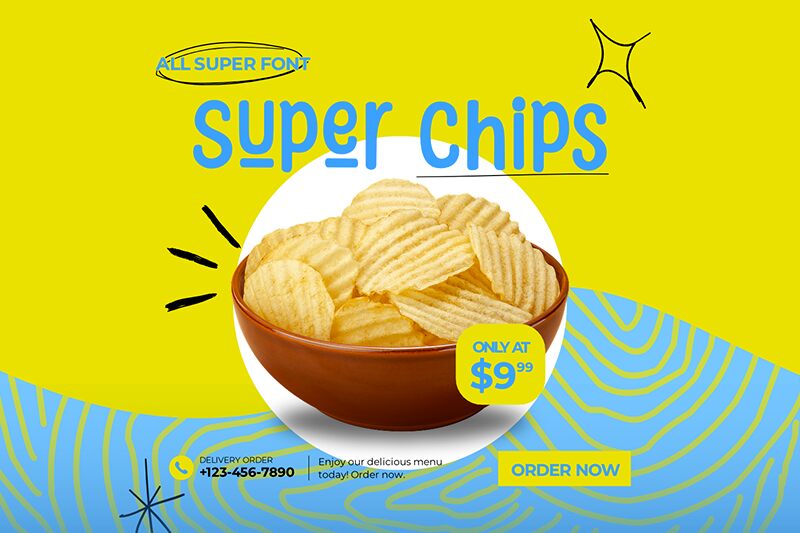
Super Chips
Super Chips font was created by the designer fsuarez913. Super Chips is a bold, rounded cartoon display font keeping a casual mood. It has smooth lines, moderate spacing, and uniform stroke width. Truly one of a kind!